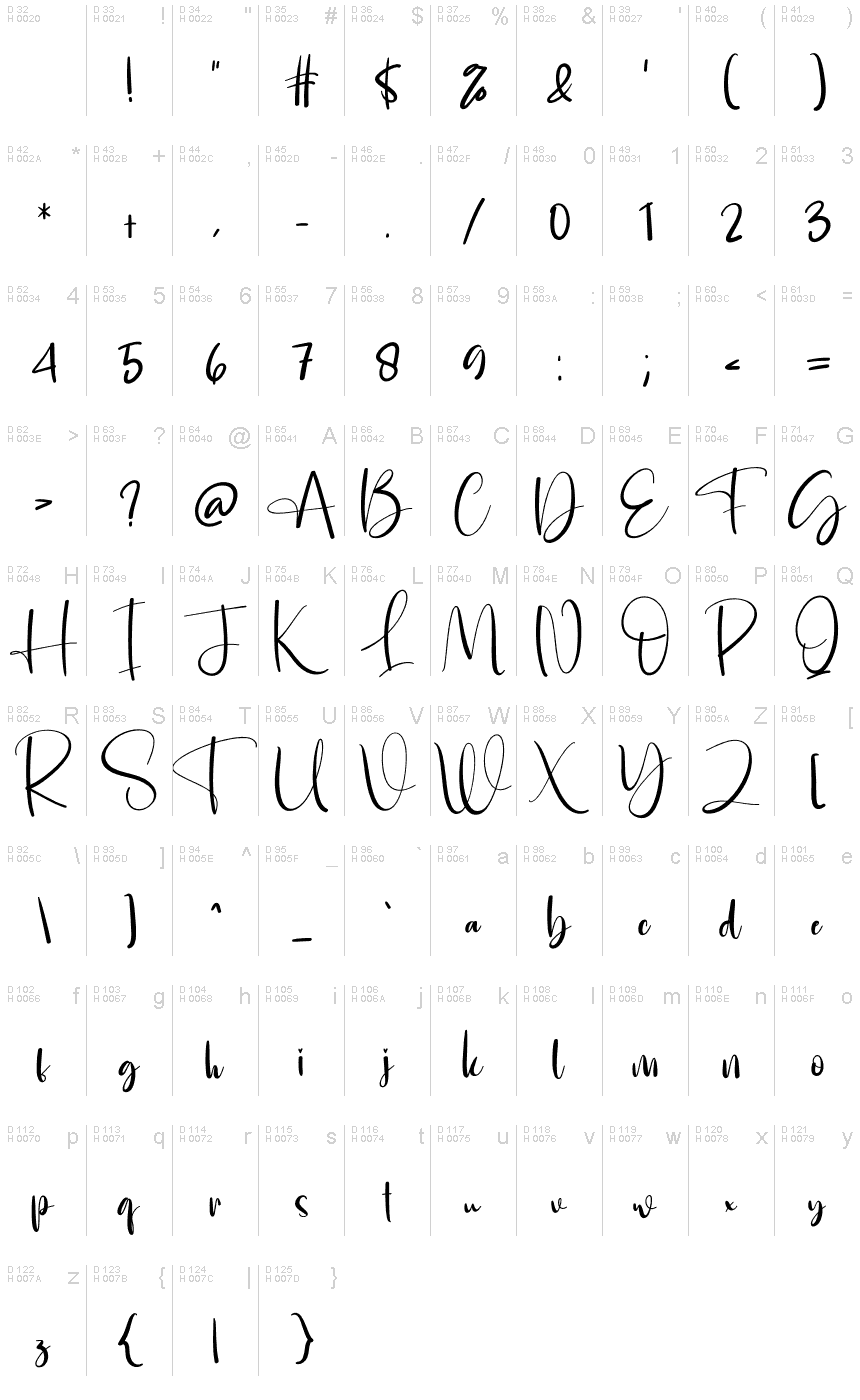
Hamburger
Hamburger, designed by Scratchones, is a semi-light handwritten font that exudes a blend of casual elegance and playful fluidity. Its effortlessly stylish strokes are reminiscent of swift penmanship, offering an aesthetic that is both personal and approachable. The semi-light weight of Hamburger ensures readability while maintaining a delicate finesse, making it an excellent choice for designs requiring a touch of intimacy without sacrificing clarity.
The handwritten style of Hamburger lends itself to a wide array of creative projects. From personalized invitations and greeting cards to unique branding elements and packaging design, this font has the versatility to add an authentic handcrafted feel. Its dynamic yet subtle appearance stands out in contexts where a human touch is desired, bridging the gap between professional typography and the artistry of hand-drawn letters.
Incorporating Hamburger into your design toolkit will empower you to craft messages with character and warmth, inviting viewers into a world where every word is penned with purpose.
The handwritten style of Hamburger lends itself to a wide array of creative projects. From personalized invitations and greeting cards to unique branding elements and packaging design, this font has the versatility to add an authentic handcrafted feel. Its dynamic yet subtle appearance stands out in contexts where a human touch is desired, bridging the gap between professional typography and the artistry of hand-drawn letters.
Incorporating Hamburger into your design toolkit will empower you to craft messages with character and warmth, inviting viewers into a world where every word is penned with purpose.